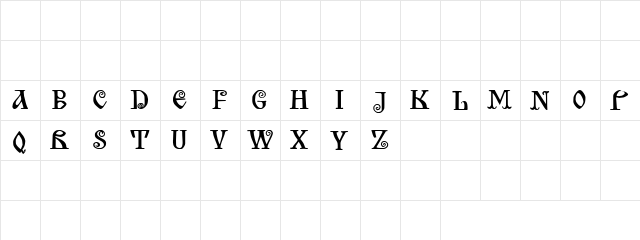
Bilibin Regular
Design Context for Bilibin Typeface
Bilibin is a composed and adaptable typeface that performs quietly and consistently across a wide range of design contexts.